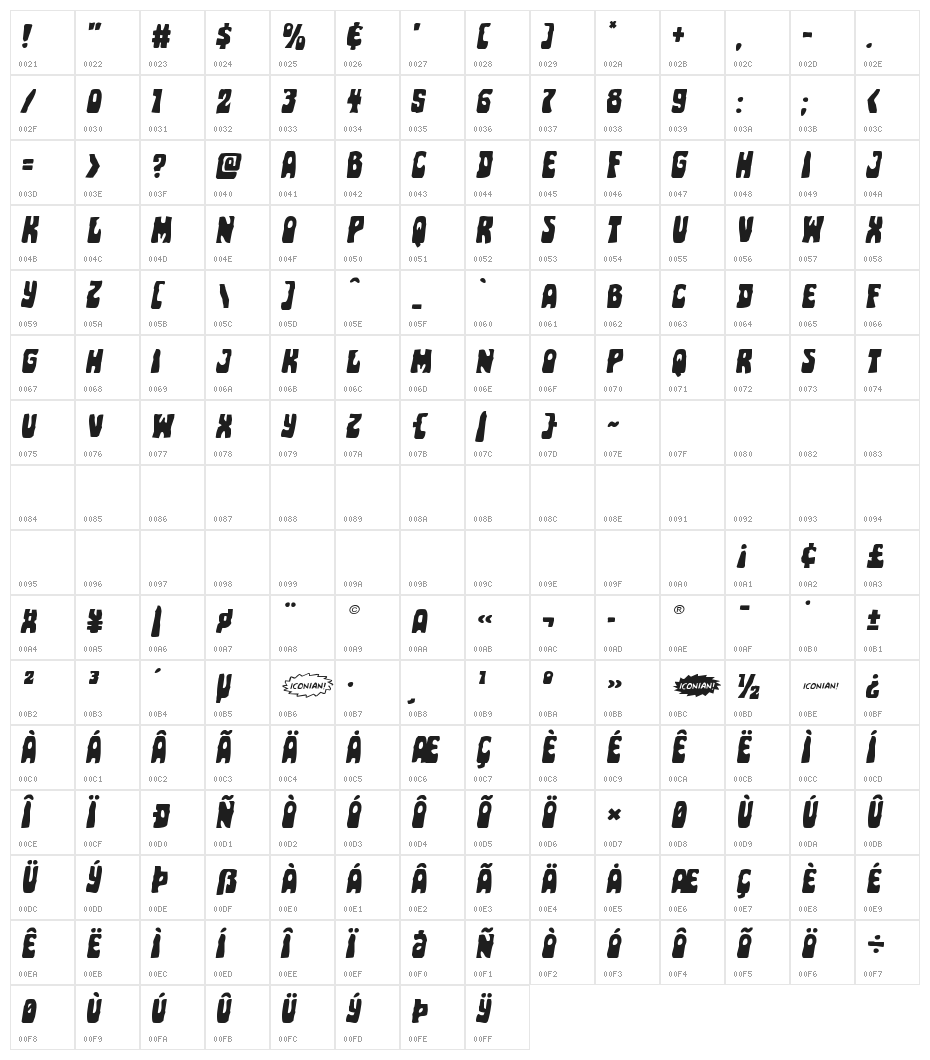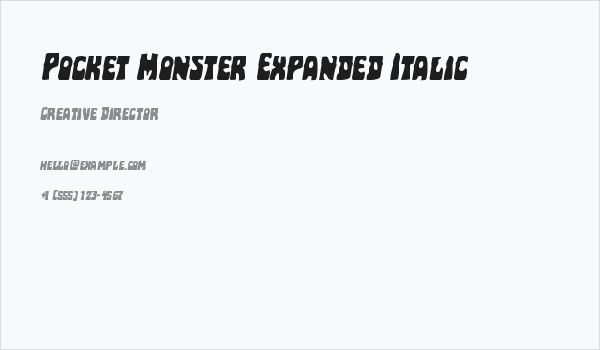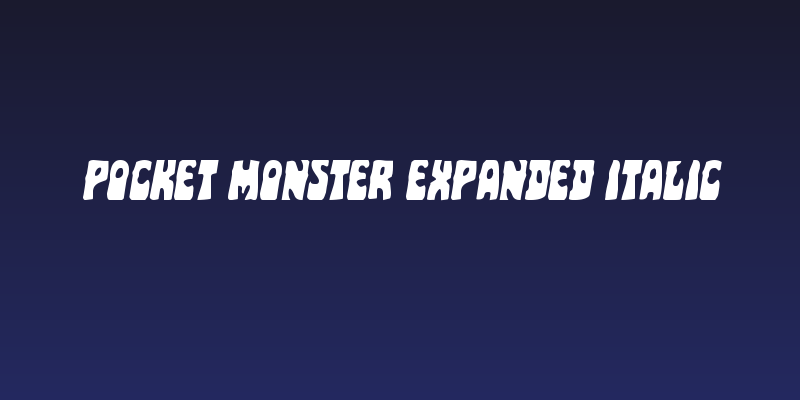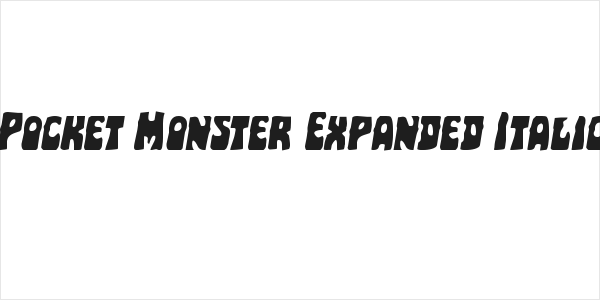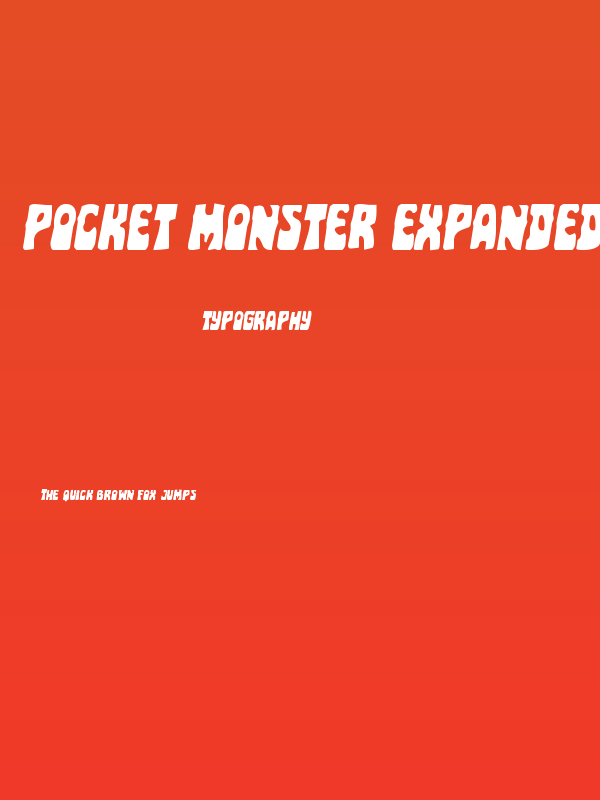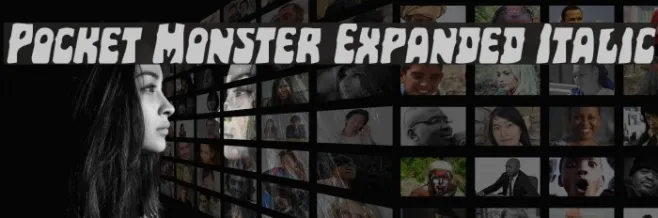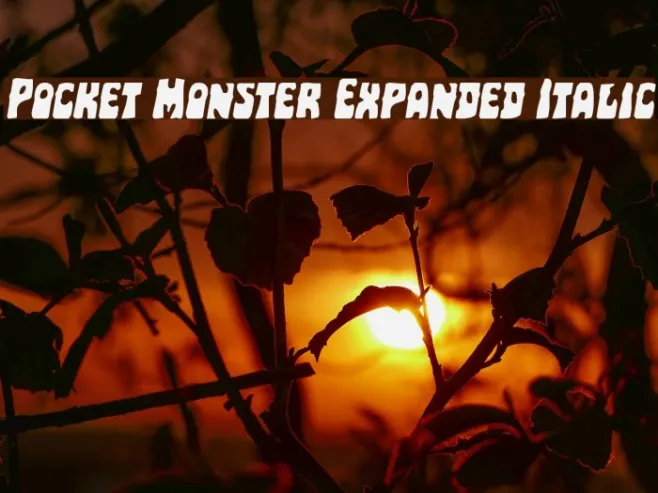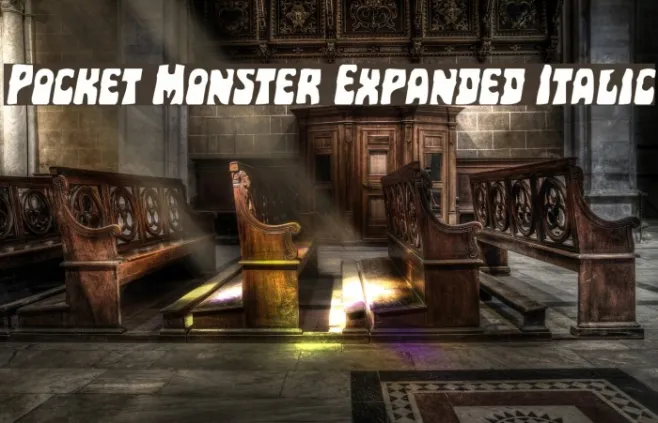
Pocket Monster Expanded Italic Font
Pocket Monster Expanded Italic Description
This font features a bold and playful design with an expanded and italicized style. The characters have a unique, chunky appearance with irregular edges, giving them a dynamic and energetic feel. The uppercase and lowercase letters maintain a consistent weight, while the numbers and special characters follow the same bold and whimsical design. The font's overall look is reminiscent of a cartoon or comic style, making it ideal for projects that require a fun and eye-catching typeface.
| Overall Style | Playful, Cartoon |
| Proposed Projects | Ideal for children's book covers, comic strips, playful branding, and eye-catching posters. |